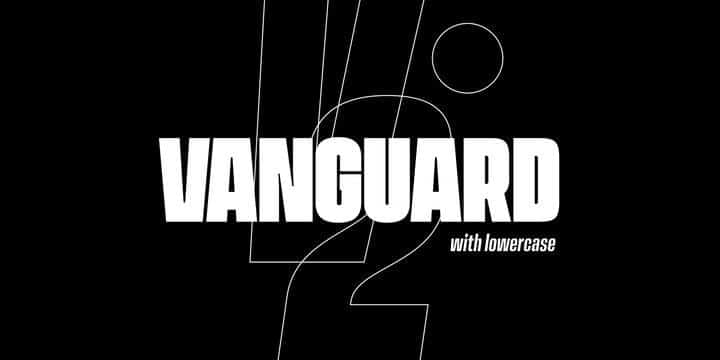
Vanguard CF Font
Constructed for maximum impact in tight horizontal spaces, Vanguard’s eight weights span a featherlight Thin to a striking Heavy, with accompanying obliques. Vanguard CF impresses in print, headlines, video, and social media.